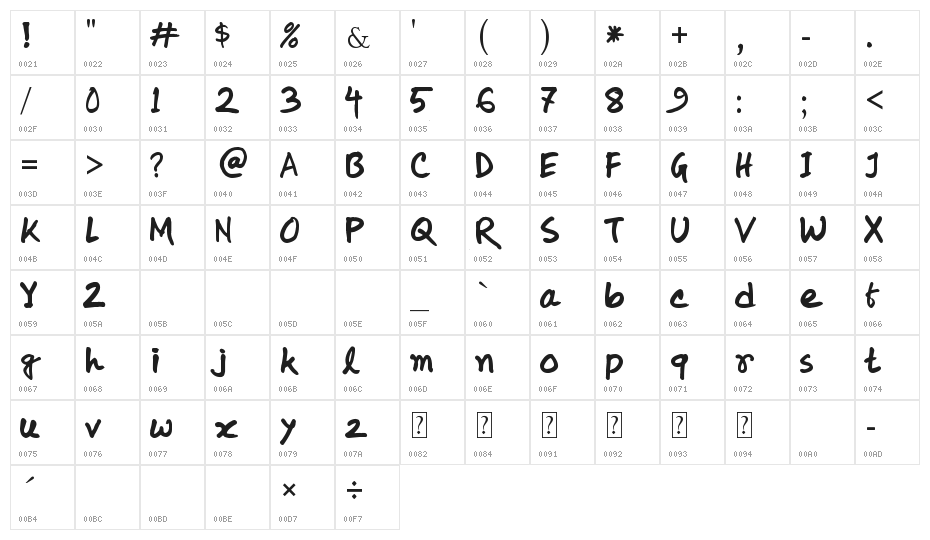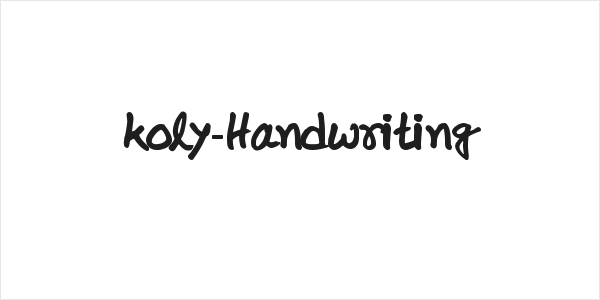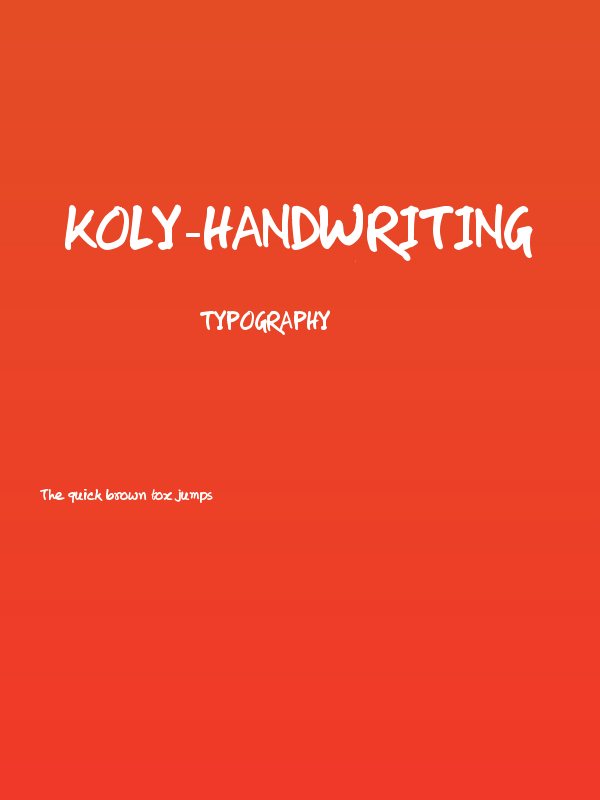
koly-Handwriting Font
koly-Handwriting Description
This font exudes a casual and personal touch, reminiscent of natural handwriting. The characters are bold and slightly irregular, giving an authentic, hand-drawn feel. The uppercase and lowercase letters maintain a consistent style, with rounded edges and a playful demeanor. The numbers and special characters follow the same aesthetic, ensuring a cohesive look across all elements. This font is perfect for projects that require a personal, informal, and approachable tone.
| Proposed Projects | Ideal for greeting cards, personal blogs, informal invitations, and creative projects that require a human touch. |